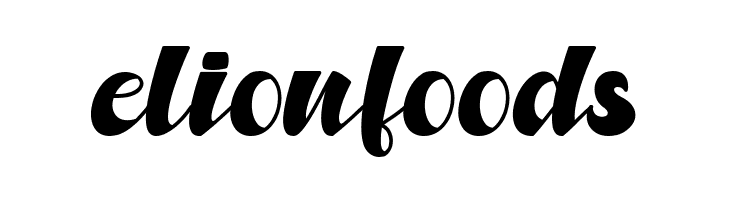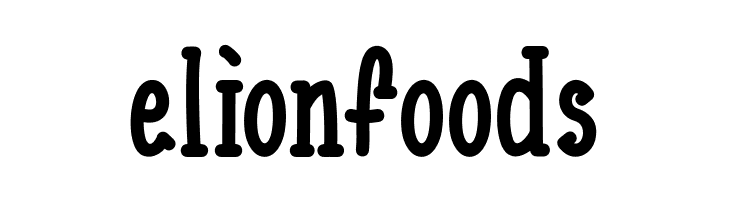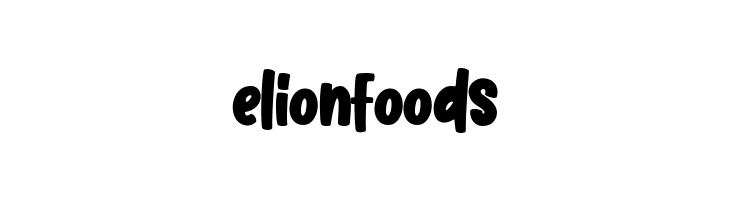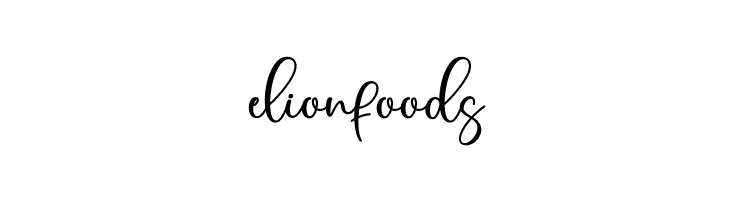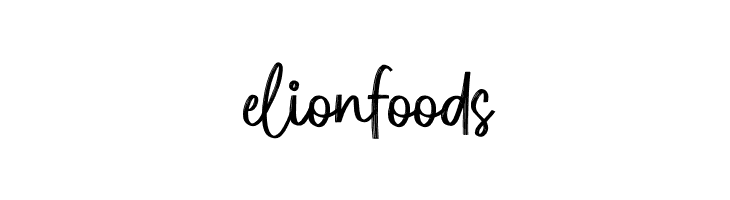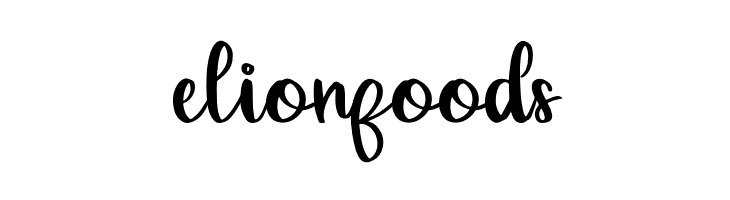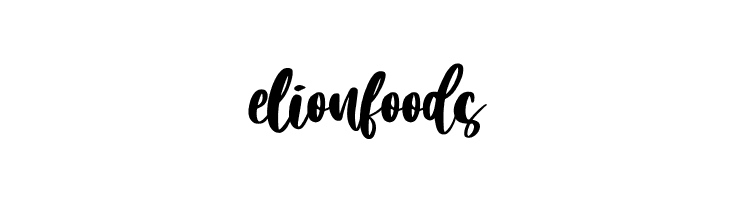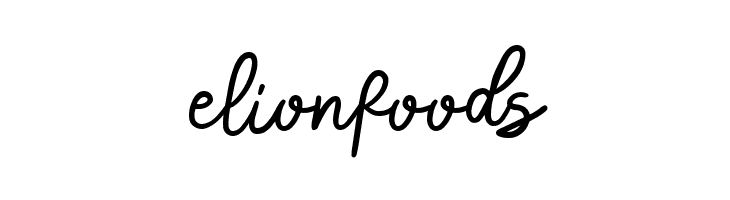
A bold, dynamic script font with flowing, cursive characters and decorative details.
A playful, handwritten-style font with bold, rounded characters.
A bold, playful font with a strong, modern presence.
A bold, playful font with rounded edges and a friendly, approachable style.
A playful and elegant script font with flowing, cursive letterforms.
A playful and dynamic handwritten font with expressive strokes.
A playful, hand-drawn font with a brush-like texture and lively appearance.
A playful and bold handwritten script font with fluid strokes.
A bold, expressive script font with a flowing, hand-drawn style.
A playful and elegant script font with smooth, flowing lines and a handwritten style.